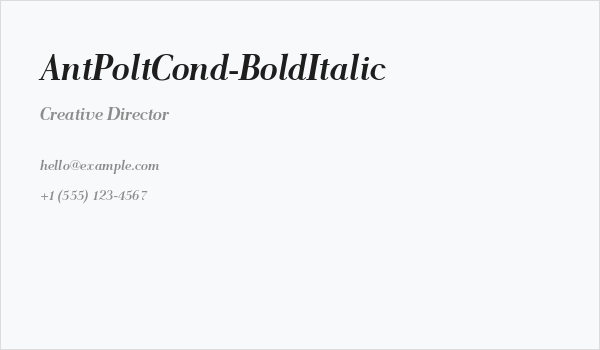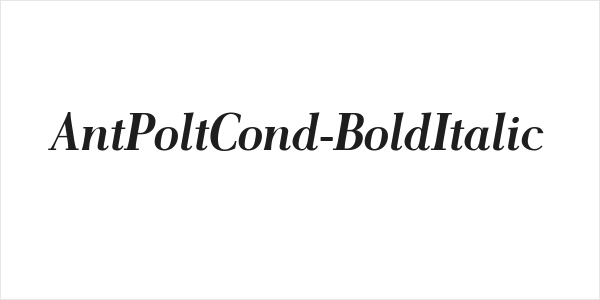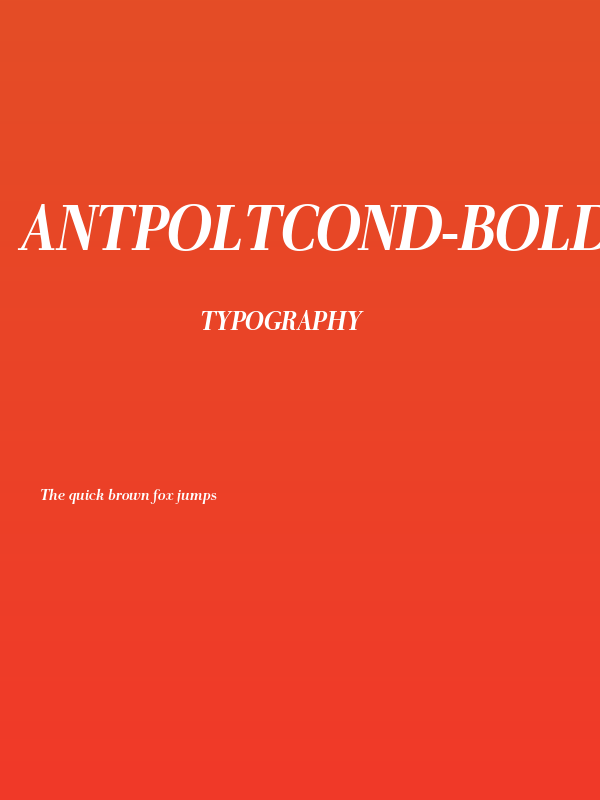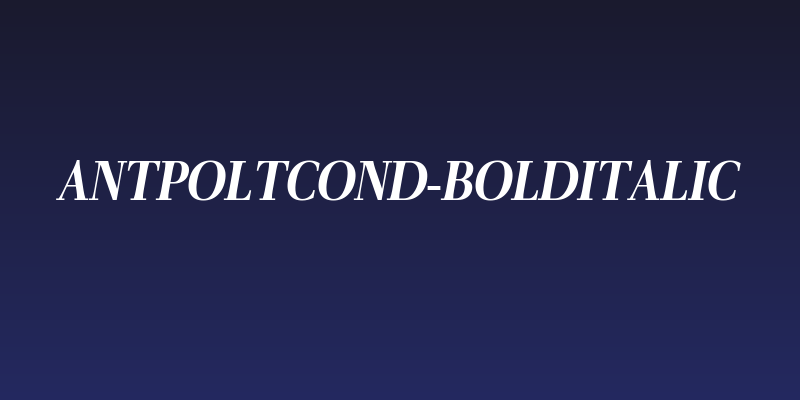
AntPoltCond-BoldItalic Font
AntPoltCond-BoldItalic Description
This font exhibits a classic serif style with a modern twist, characterized by its bold and italicized form. The letters are elegantly condensed, giving it a sophisticated and sleek appearance. The uppercase letters maintain a strong presence with sharp serifs, while the lowercase letters offer a more fluid and dynamic look. The numerals are well-proportioned, ensuring readability and balance. Special characters are crafted with the same attention to detail, making them seamlessly integrate with the overall design. The font's contrast is medium, with noticeable differences between thick and thin strokes, enhancing its readability and aesthetic appeal.
| Use Case | Headlines, Logos, Editorial design |
| Proposed Projects | Ideal for editorial design, luxury branding, book covers, and elegant invitations. |